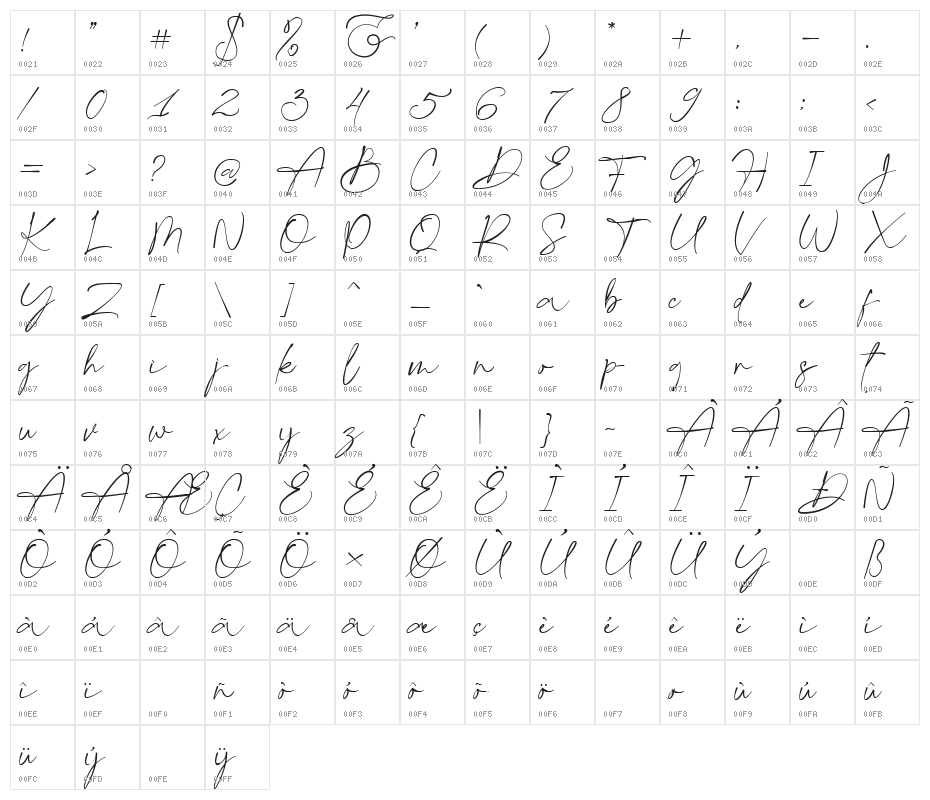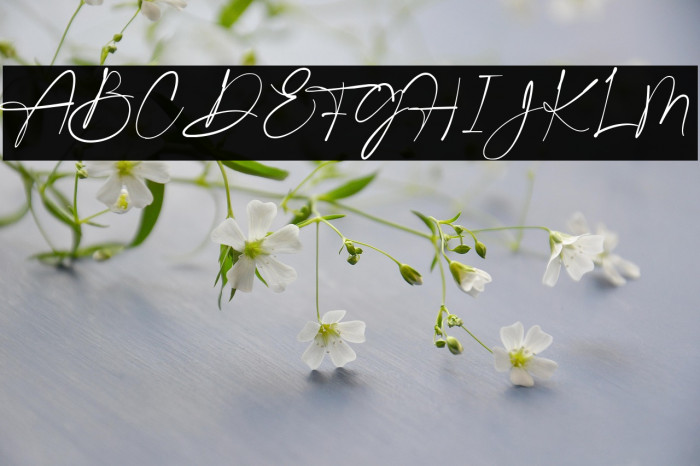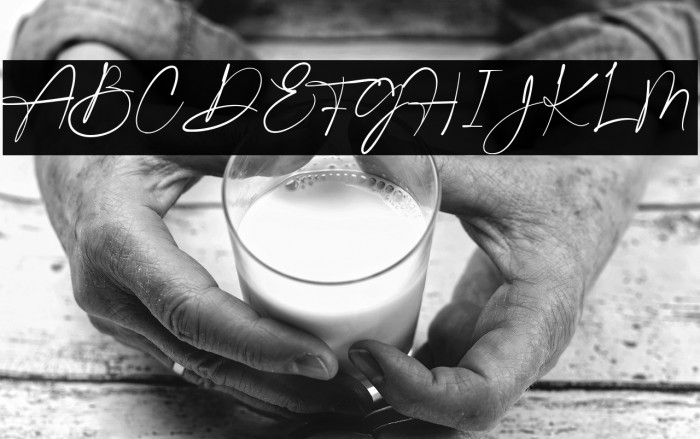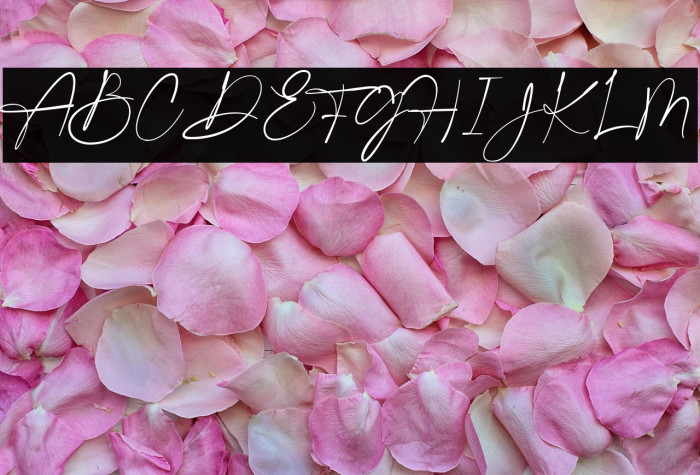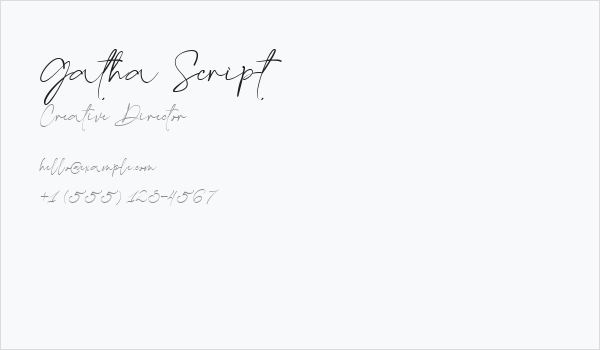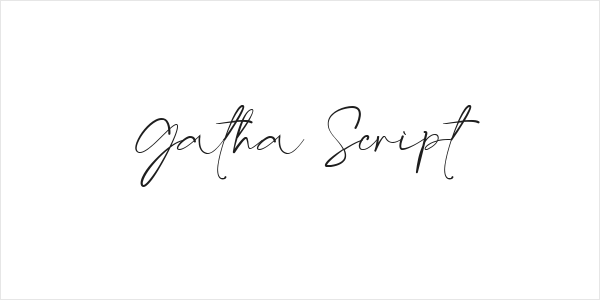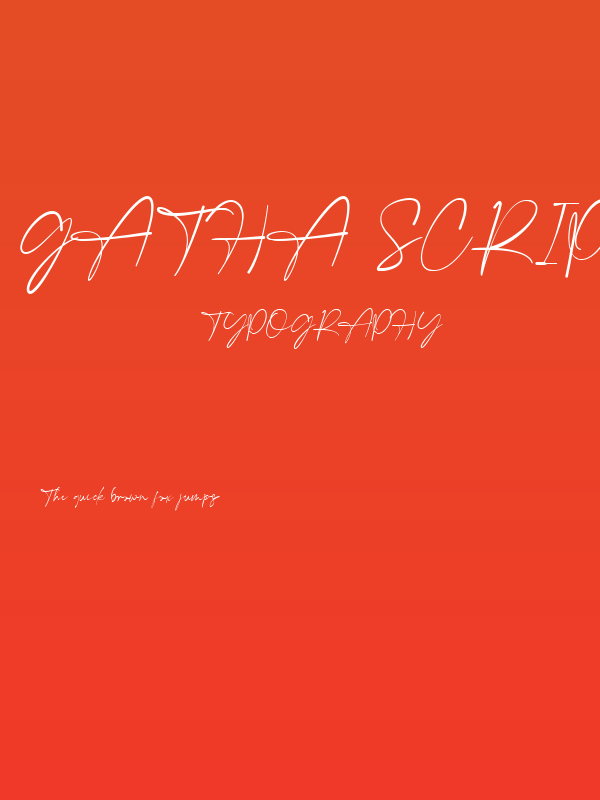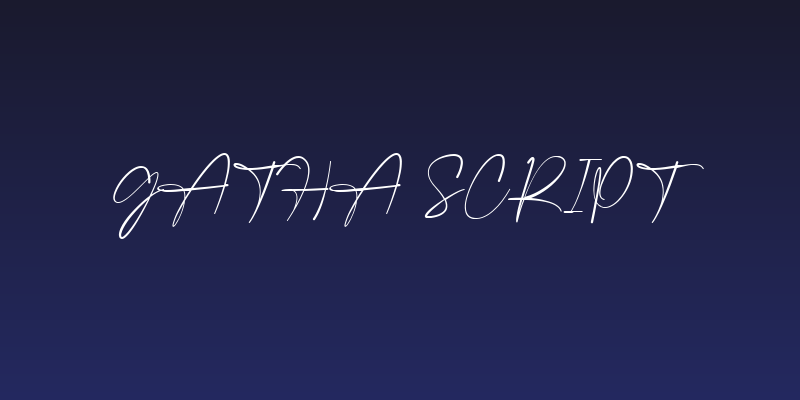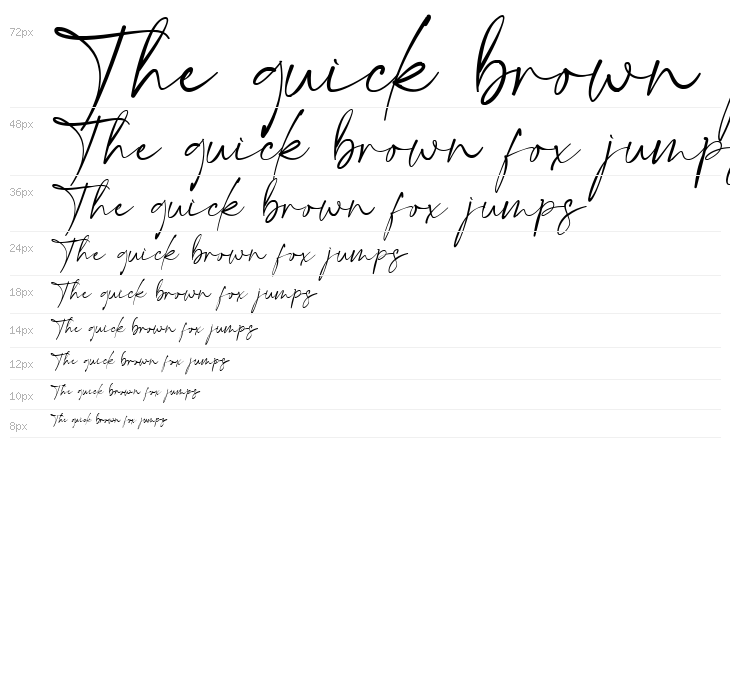
Gatha Script Font
Gatha Script Description
This font exudes a lively and elegant script style, characterized by its fluid and dynamic strokes. The letters are interconnected, creating a seamless flow that mimics natural handwriting. The uppercase letters are slightly more ornate, with flourishes that add a touch of sophistication. The lowercase letters maintain a consistent rhythm, enhancing readability while preserving the font's artistic flair. Numbers and special characters are crafted with the same attention to detail, ensuring a cohesive look across all text. This font is perfect for projects that require a personal and artistic touch.
| Overall Style | Elegant, Artistic |
| Use Case | Logos, Invitations, Artistic projects |
| Proposed Projects | Ideal for wedding invitations, greeting cards, personal branding, and artistic projects. |